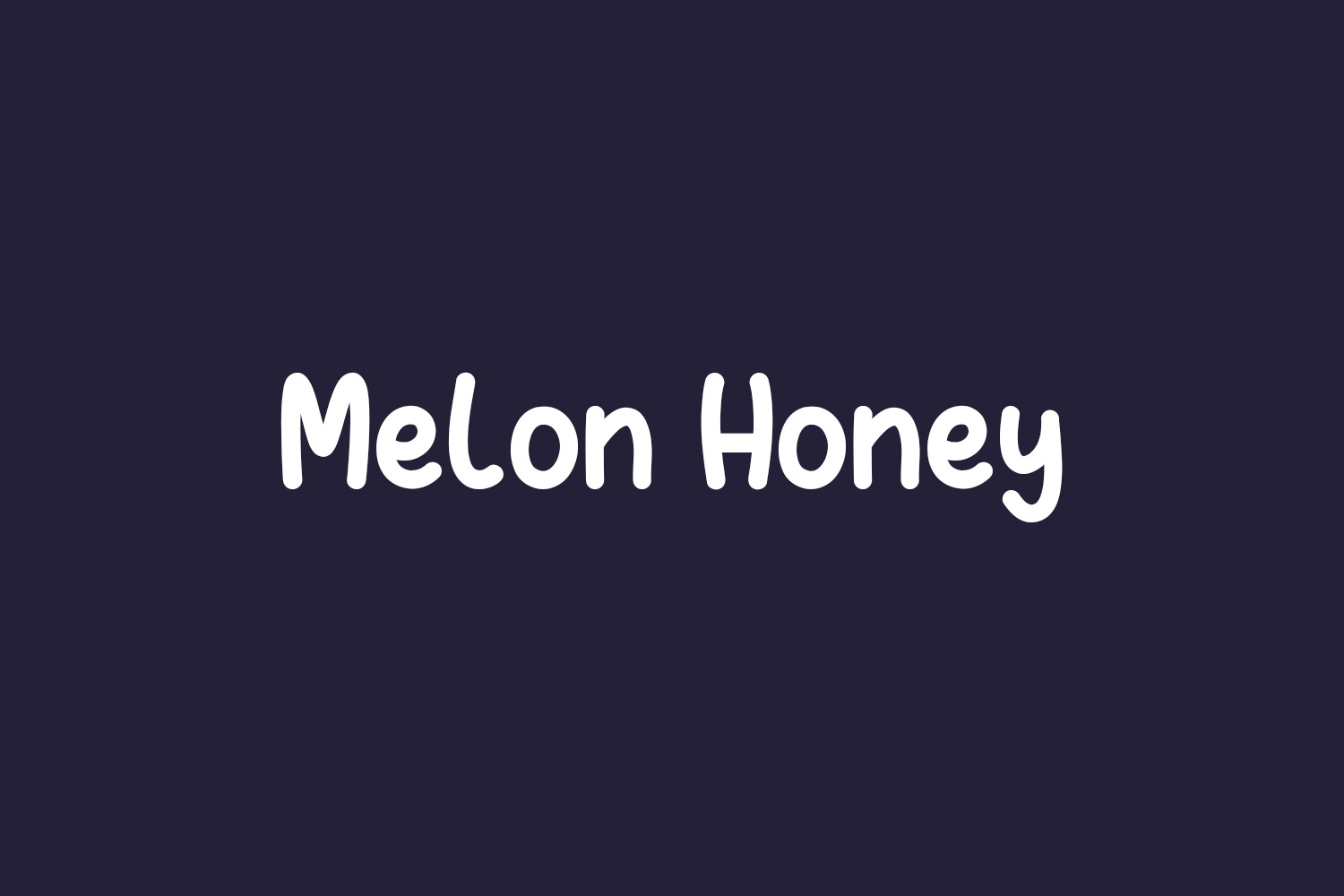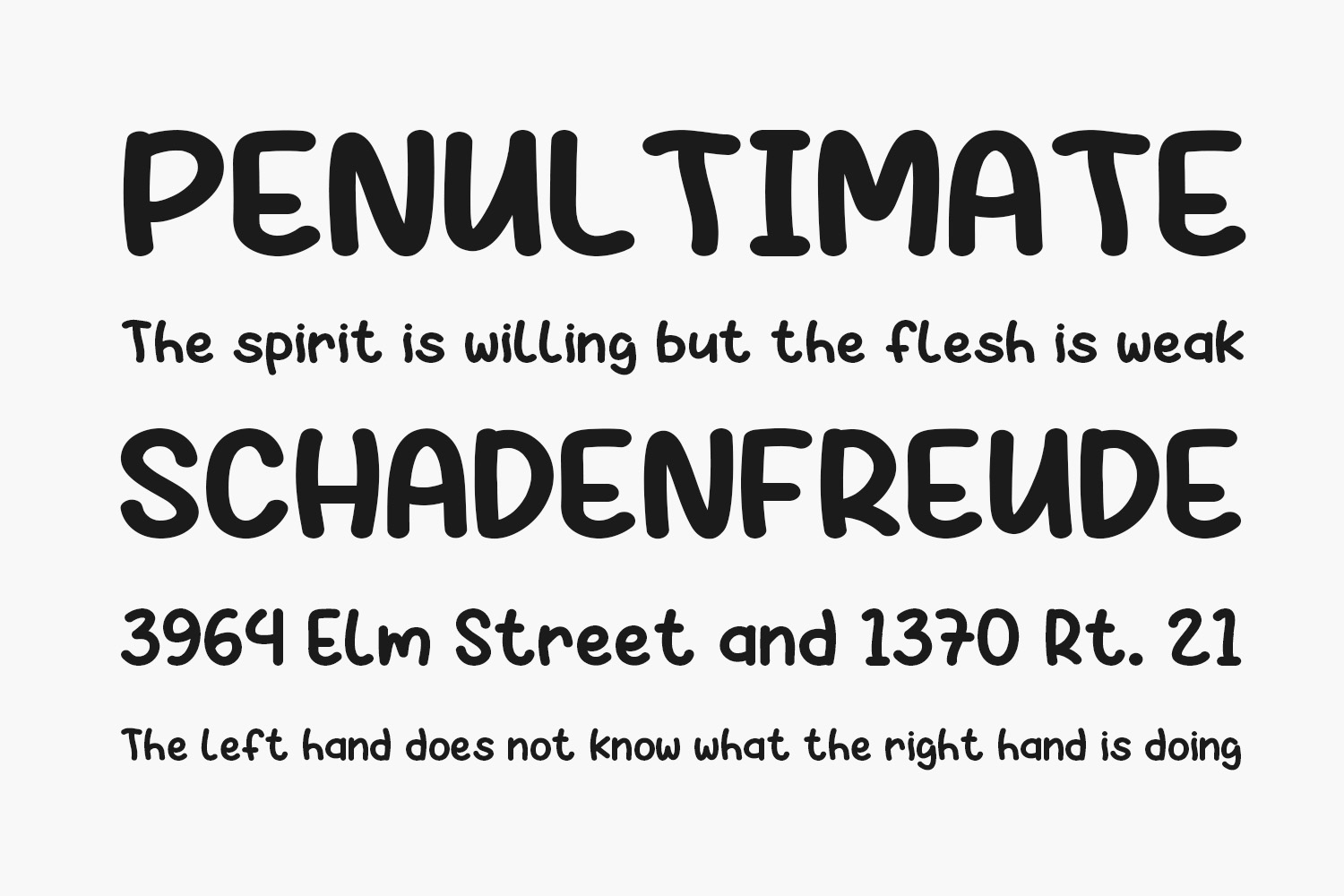
Melon Honey Free Font is a sweet and friendly handwritten font. Its natural and unique style makes it incredibly fitting to a large pool of designs. Have fun with this beautiful font and explore its endless variations. Melon Honey Free Font was designed by Morning Time Studio and is free for personal use only. Please purchase the full version for commercial use.